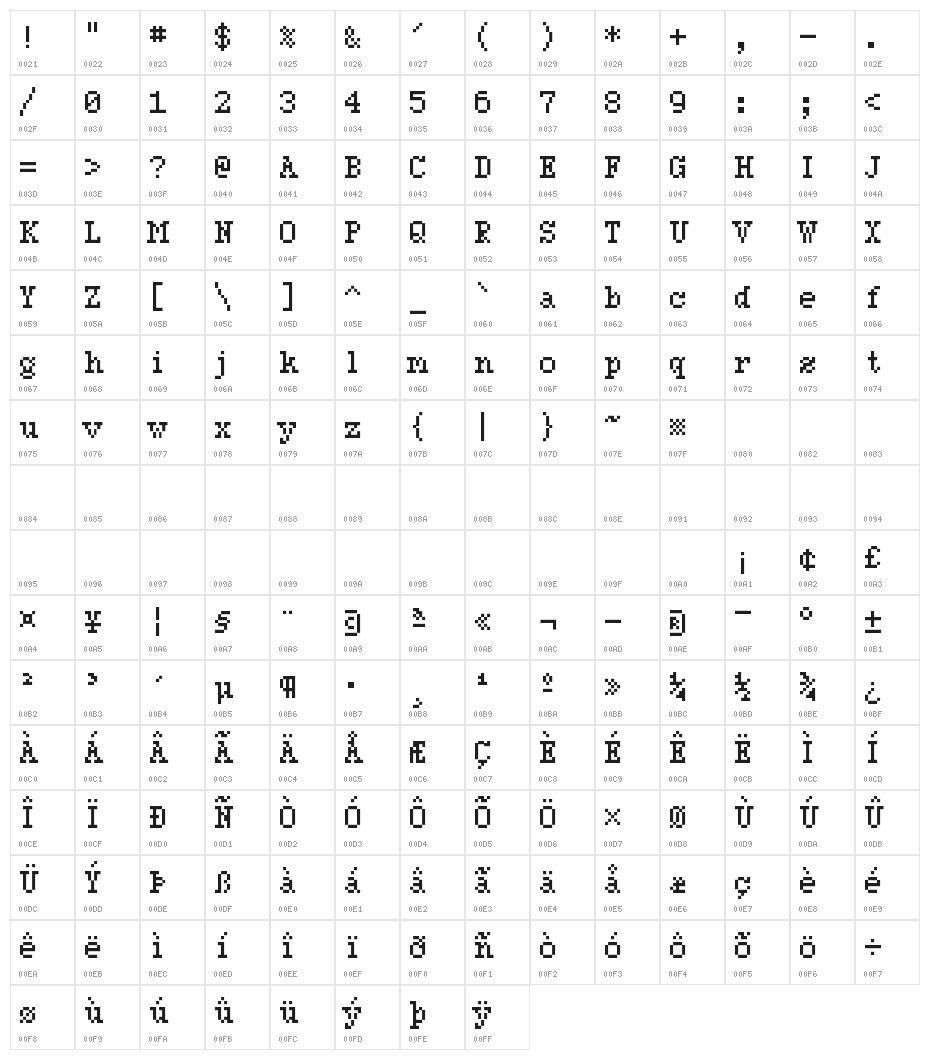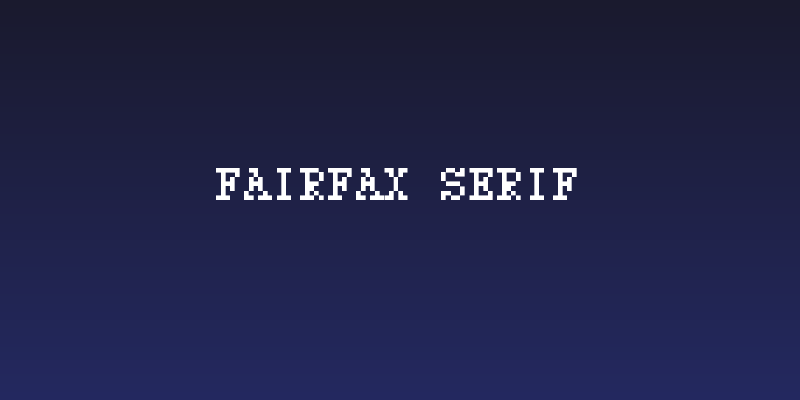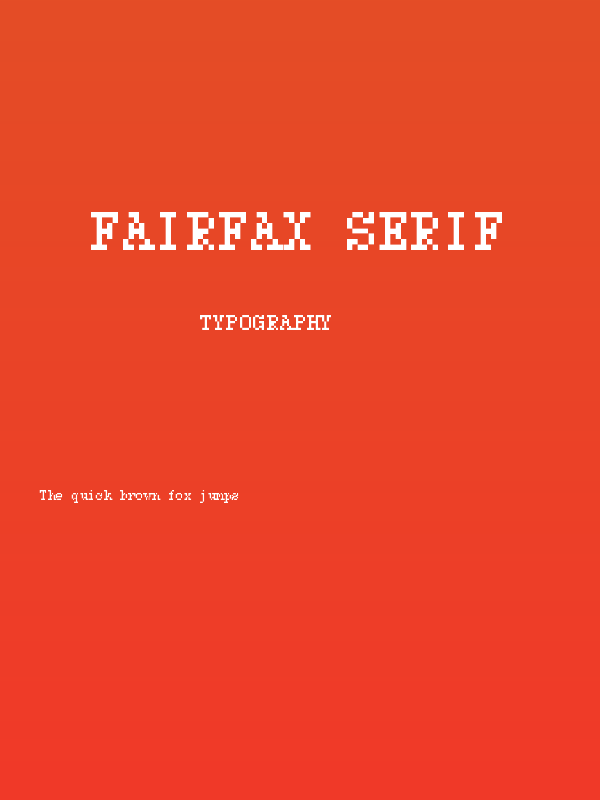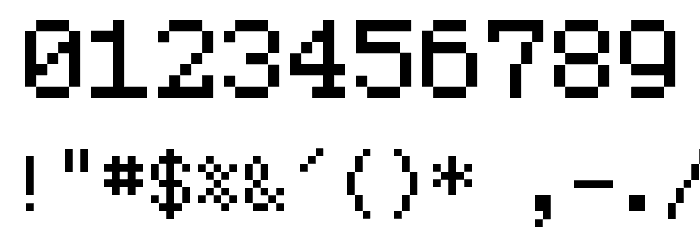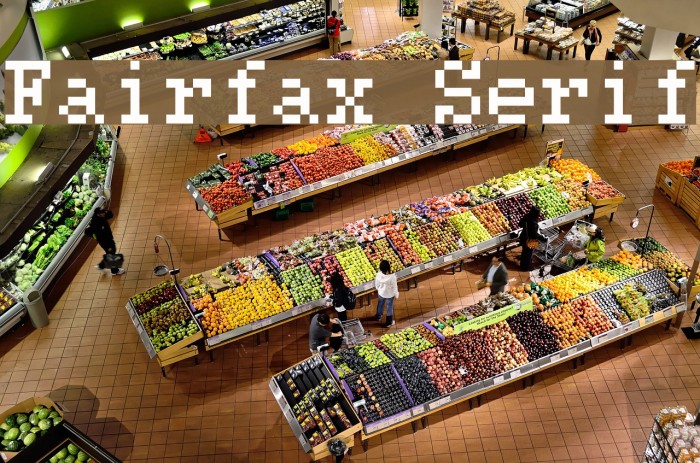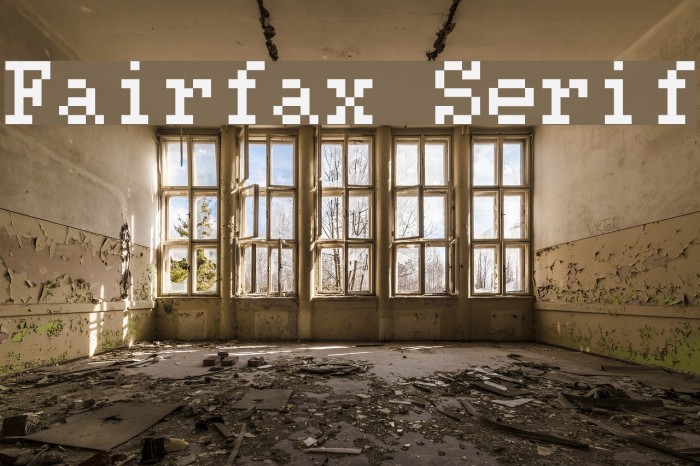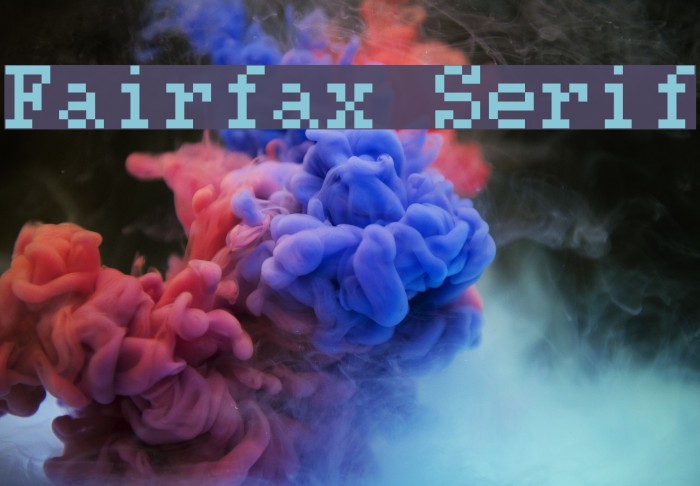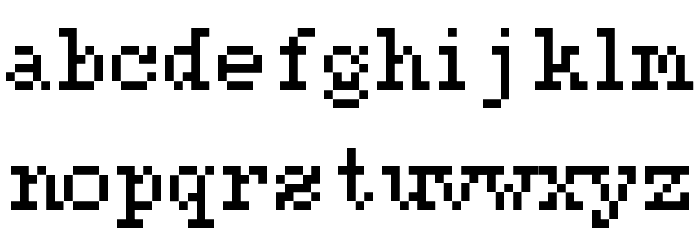
Fairfax Serif Font
Fairfax Serif Description
This font features a pixelated, monospaced design reminiscent of early digital typefaces. Each character is constructed with a grid-like precision, giving it a retro, tech-inspired aesthetic. The uppercase and lowercase letters maintain a consistent height, enhancing readability while preserving the blocky, geometric style. Numbers and special characters follow the same structured form, making them easily distinguishable. The font's simplicity and uniformity make it suitable for digital displays and projects that require a vintage computer feel.
| Overall Style | Vintage |
| Use Case | Digital displays, Retro-themed projects |
| Proposed Projects | Ideal for retro video games, digital art projects, coding environments, and tech-themed designs. |